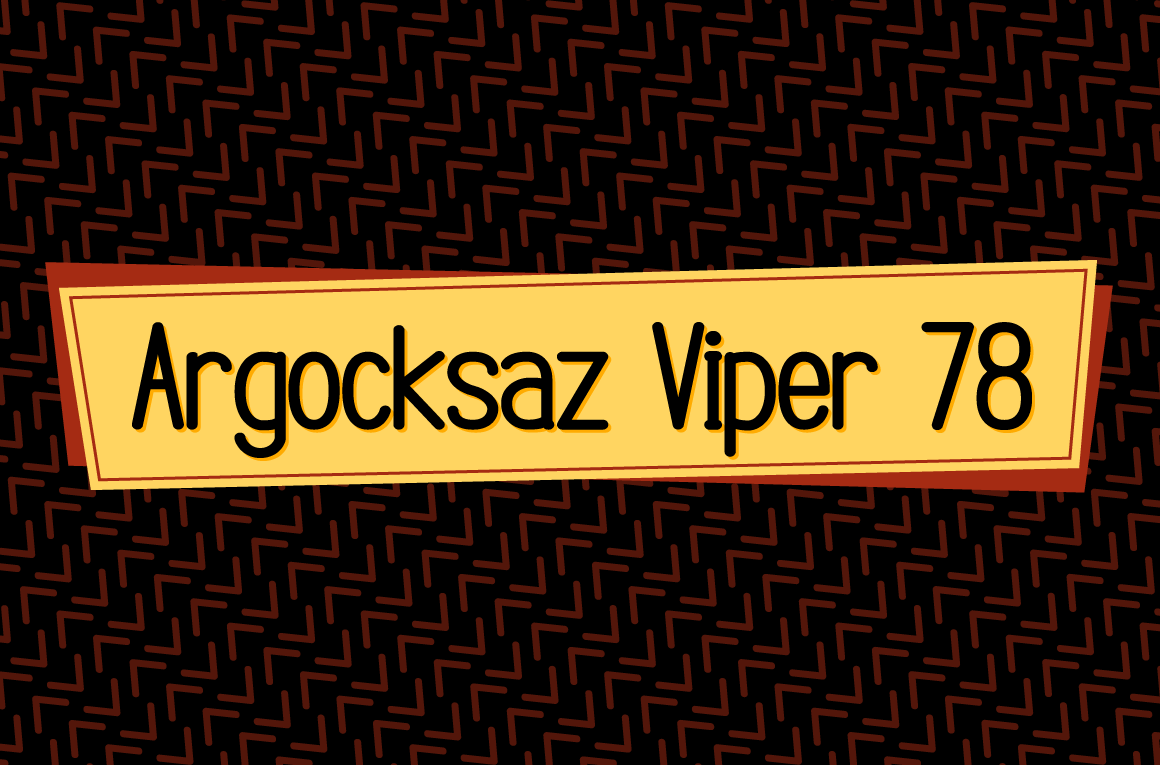
Unleash Your Creativity with Argocksaz Viper78 Font
Are you a designer or crafter looking for a font that can elevate your typographic projects to the next level? Look no further than the Argocksaz Viper78 font, a stunning yet restrained sans serif font that’s perfect for a wide range of applications. In this article, we’ll dive into the features and benefits of this versatile font, and explore how it can help you achieve your creative goals.
What is Argocksaz Viper78 Font?
Argocksaz Viper78 is a modern sans serif font that’s designed to be both visually striking and highly legible. With its clean lines, simple shapes, and balanced proportions, this font is ideal for use in a variety of typographic projects, from digital displays and signage to print materials and packaging.
Key Features of Argocksaz Viper78 Font
• Stunning yet restrained design: Argocksaz Viper78 boasts a sleek and sophisticated design that’s perfect for creating professional-looking typographic projects.
• High legibility: The font’s clear and simple shapes make it easy to read, even at small sizes.
• Versatile: Argocksaz Viper78 is suitable for use in a wide range of applications, from digital displays and signage to print materials and packaging.
Benefits of Using Argocksaz Viper78 Font
So why choose Argocksaz Viper78 font for your typographic projects? Here are just a few benefits of using this versatile font:
• Enhance your brand’s visual identity: With its modern and sophisticated design, Argocksaz Viper78 font can help you create a strong and consistent visual brand that sets you apart from the competition.
• Improve readability: The font’s high legibility makes it perfect for use in body text, captions, and other applications where clear communication is essential.
• Increase creativity: Argocksaz Viper78 font is a versatile tool that can be used in a wide range of creative projects, from graphic design and branding to crafting and DIY projects.
Who Can Benefit from Argocksaz Viper78 Font?
Argocksaz Viper78 font is perfect for a wide range of designers, crafters, and creative professionals, including:
• Graphic designers: Use Argocksaz Viper78 font to create stunning visual identities, logos, and branding materials for your clients.
• Sign makers: This font is ideal for creating eye-catching signs, banners, and displays that grab attention.
• Crafters and DIY enthusiasts: Use Argocksaz Viper78 font to add a professional touch to your handmade projects, from jewelry and crafts to woodworking and sewing.
Argocksaz Viper78 font is a stunning yet restrained sans serif font that’s perfect for a wide range of typographic projects. With its clean design, high legibility, and versatility, this font is ideal for designers, crafters, and creative professionals looking to elevate their creative projects. Whether you’re creating visual identities, signs, or handmade crafts, Argocksaz Viper78 font is a great choice. So why wait? Download Argocksaz Viper78 font today and unleash your creativity!